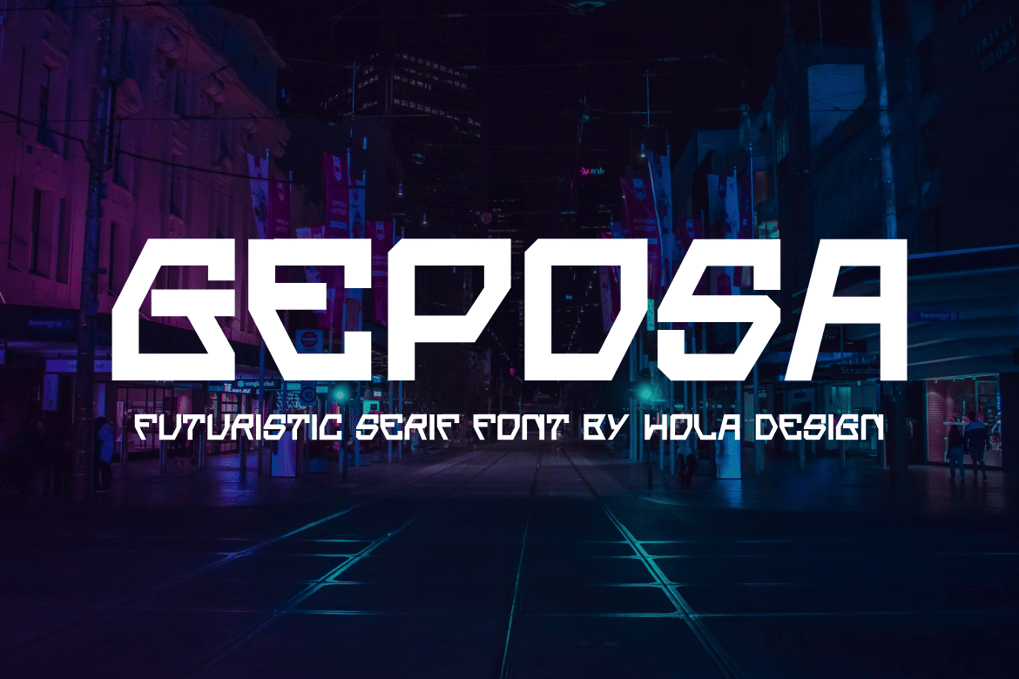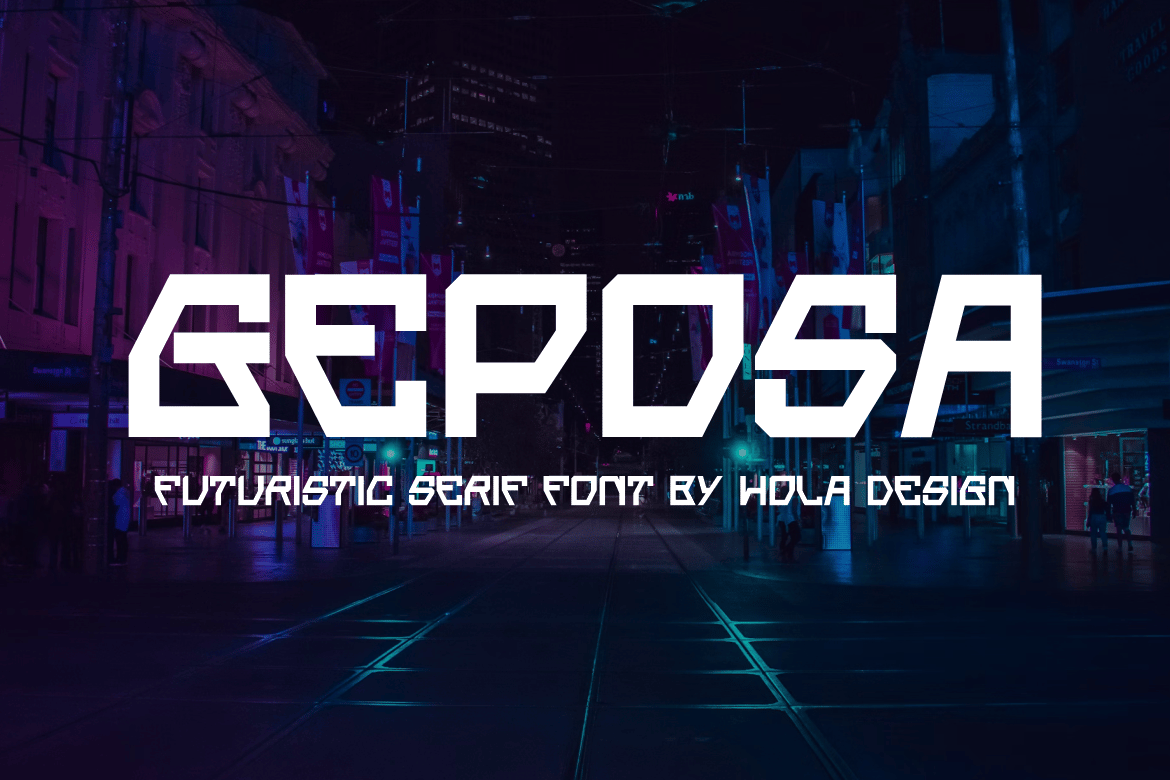
Geposa – Tech Font
Geposa – Tech Font Font is unique . Ready to use for your design like labeling, movie sceen, poster, movie title, gigs, album covers, logos, and much more.